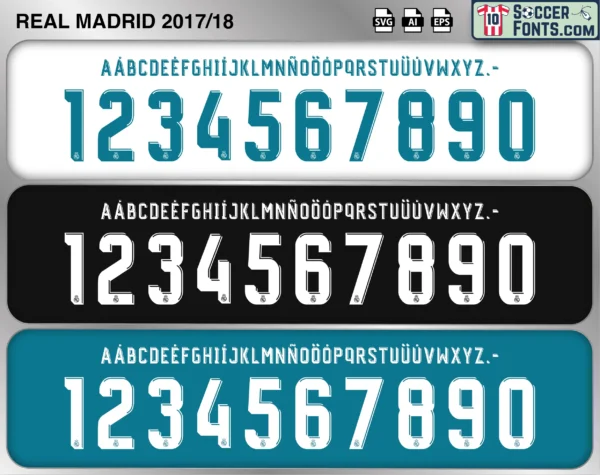
Real Madrid 2017-18 Font
The Real Madrid 2017-18 font is an editable soccer jersey lettering design in vector format inspired by the Real Madrid kit style used during the 2017-18 football season. This football font artwork is prepared for football shirt recreations, custom jersey projects, football kit mockups and sports graphic design workflows.
Real Madrid 2017-18 font football shirt vector design
Real Madrid 2017-18 Font